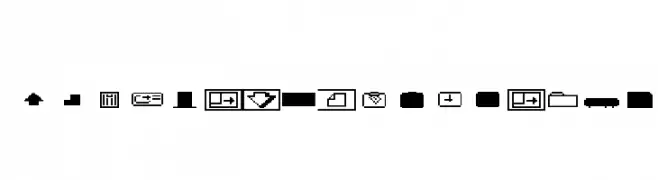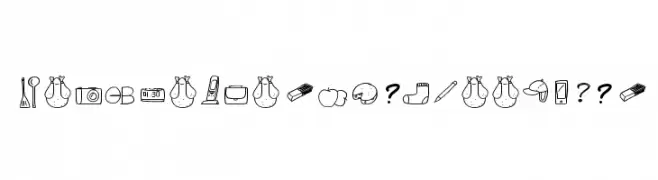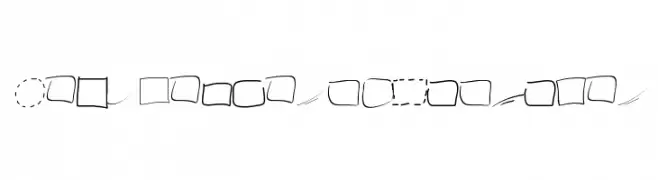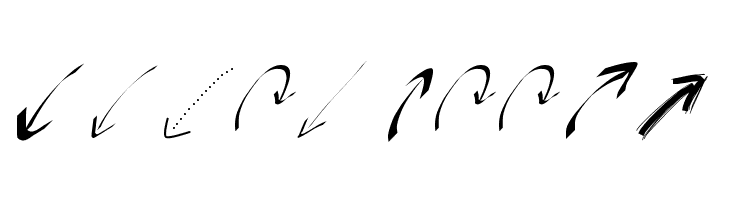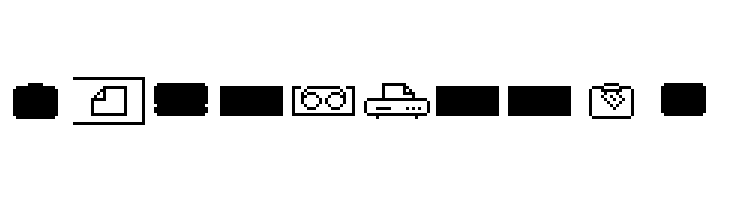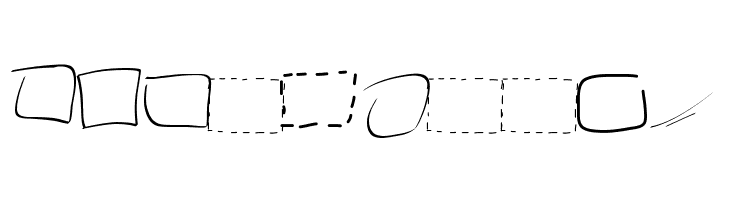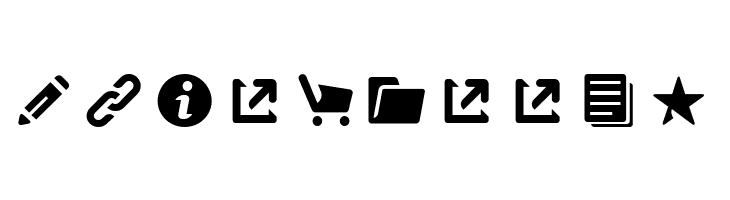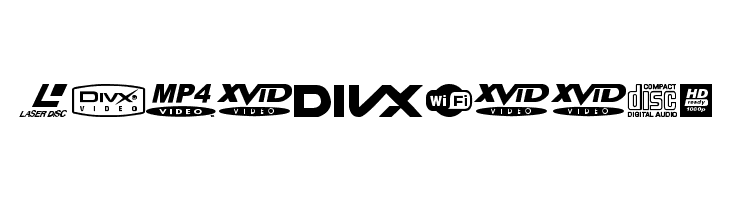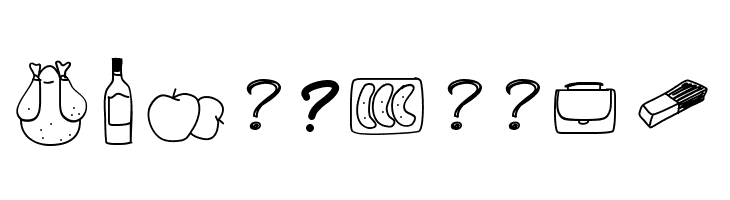
A versatile collection of directional arrows with various styles and orientations.
A diverse set of decorative arrows in multiple hand-drawn and graphic styles.
Pixelated icon font with folder, file, and interface symbols.
A modular, geometric symbol font with a pixel-art style.
Hand-drawn geometric shapes with playful, sketchy outlines.
A set of stylized media and technology format logos.
Outlined, rounded icons representing various social media and web platforms.
Outlined geometric and decorative label shapes.
Hand-drawn, whimsical icon set with casual outlines.